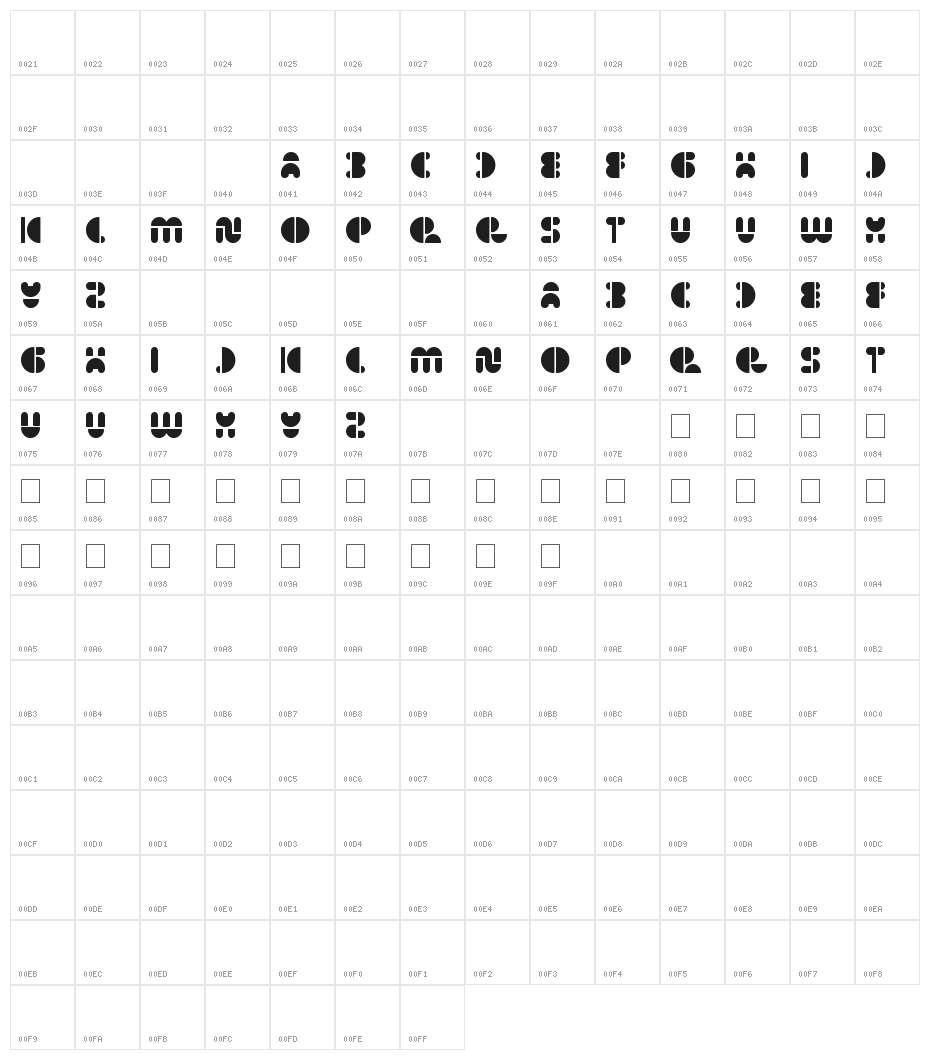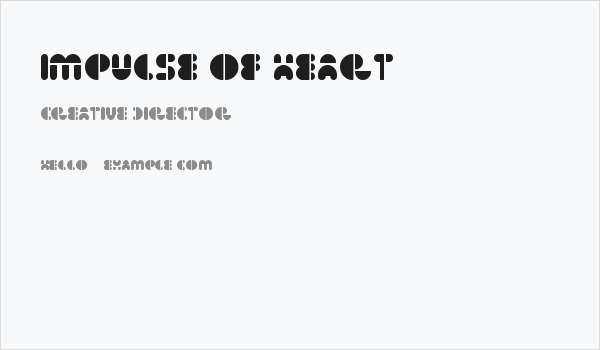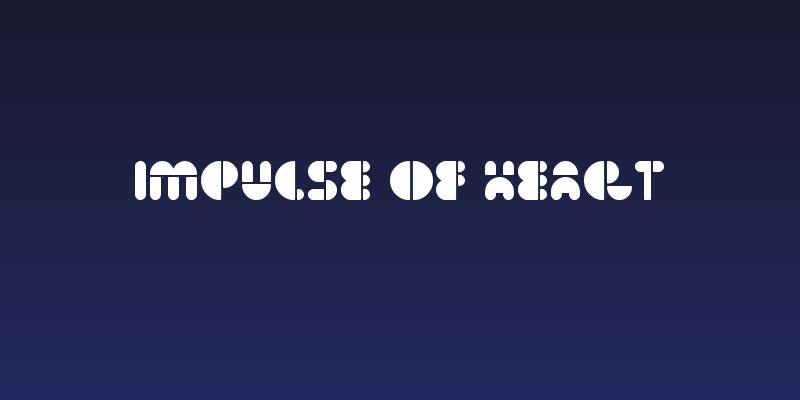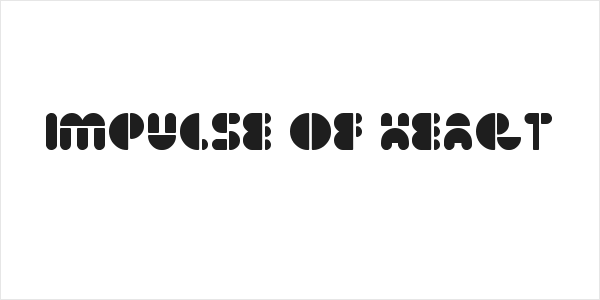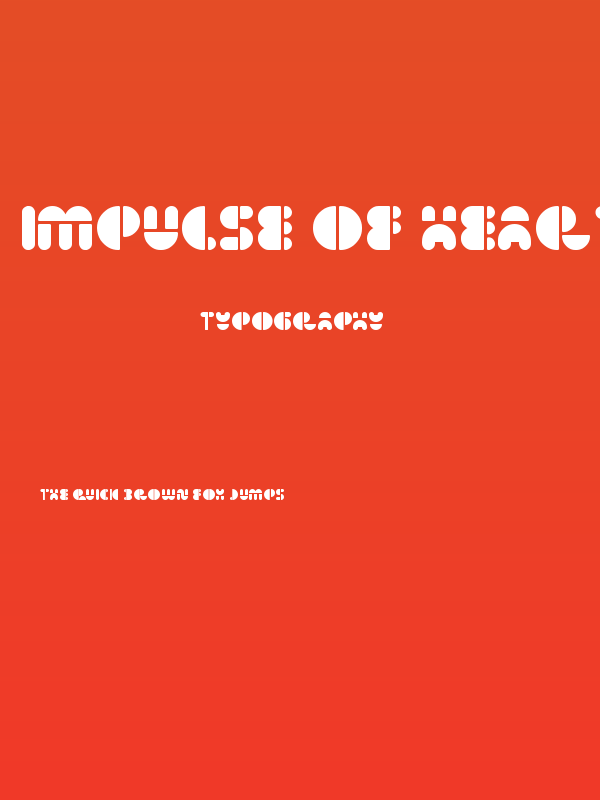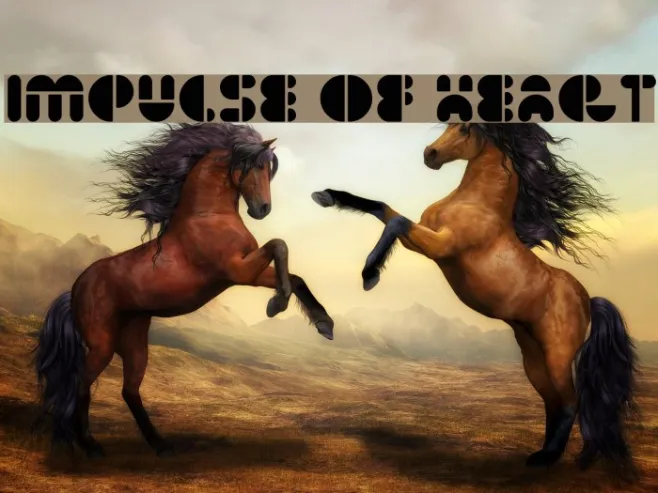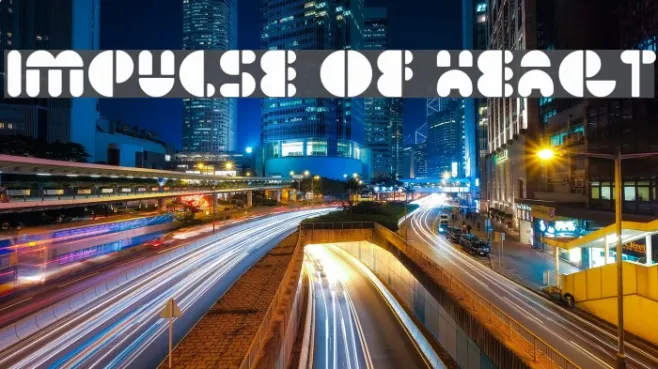
impulse of heart Font
impulse of heart Description
This font features a bold and geometric design, characterized by its use of solid, circular shapes and negative space to form each letter. The uppercase letters are particularly striking, with a futuristic and abstract appearance that makes them stand out. The font's unique style is achieved through the clever use of symmetry and repetition, creating a visually appealing pattern within each character. The lowercase letters maintain the same geometric theme, offering a consistent look across the typeface. This font is highly decorative and is best suited for creative and artistic projects where a modern and avant-garde aesthetic is desired.
| Proposed Projects | Ideal for modern art posters, album covers, branding for tech companies, and any project requiring a bold statement. |